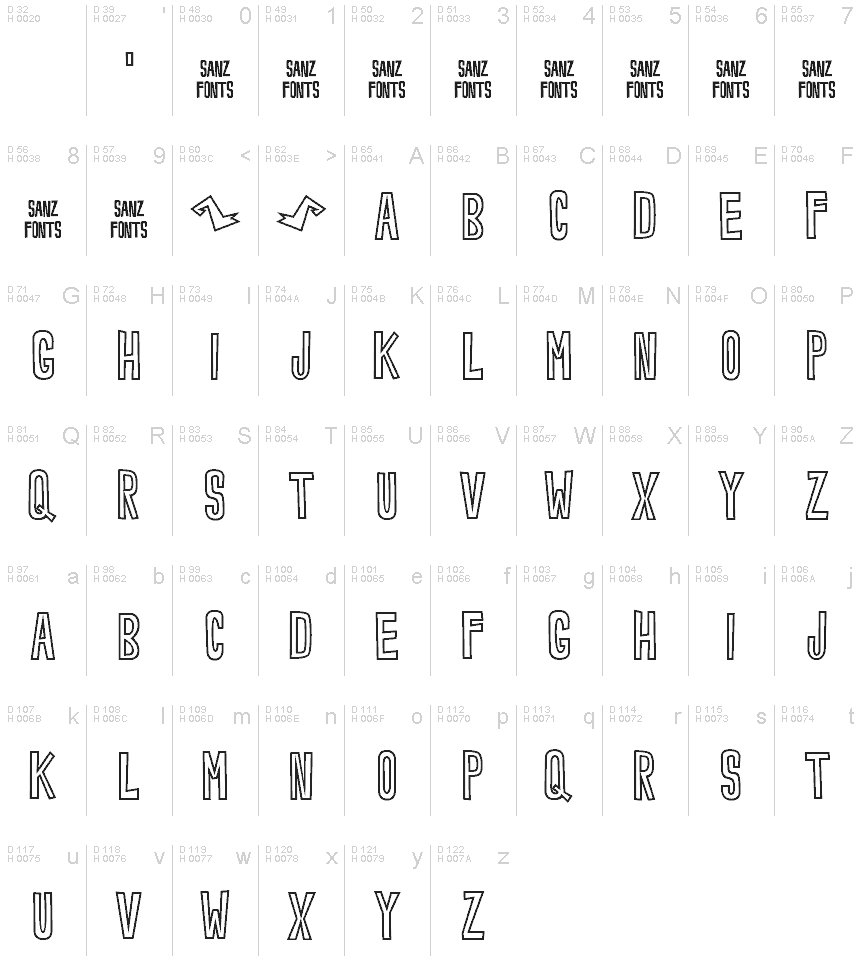
Noveey Outline
Noveey is a bold, eye-catching display font that exudes a distinct comic book aesthetic. Crafted by designer Sanz d'Cloudz, this condensed, outlined typeface effortlessly commands attention with its angular, geometric letterforms and dynamic visual appeal. The font's striking contrast and playful, comic-inspired style make it an ideal choice for a wide range of applications, from vibrant logos and headings to impactful editorial design and attention-grabbing branding.
Noveey's versatility shines in its ability to elevate and energize any design, lending a touch of quirky, contemporary flair that is sure to captivate audiences.